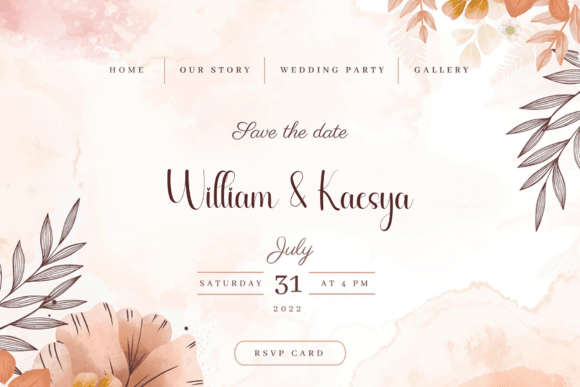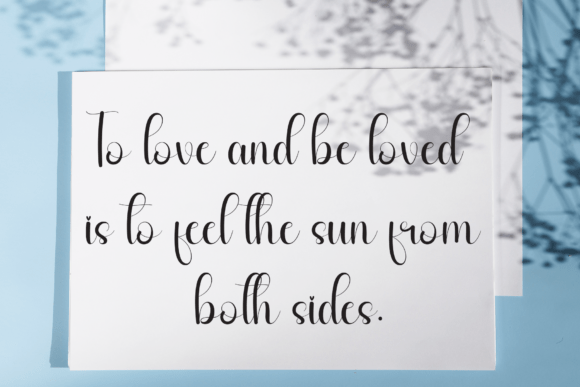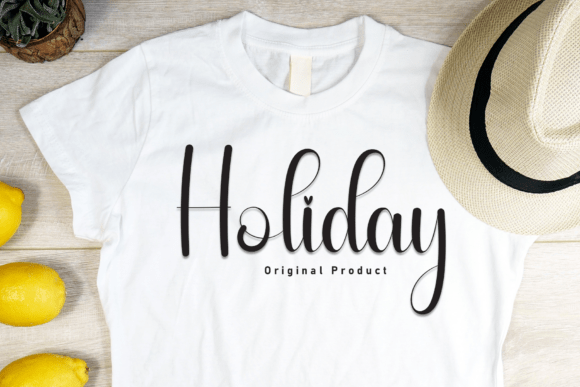
Introduction to Notes Valentines Font
Have you ever been working on a creative project, pouring your heart and soul into every detail, and suddenly, the perfect font comes along and elevates your design to a whole new level? That’s exactly what happened to many designers when they discovered the Notes Valentines Font.
This stunning handwritten script font has captured the hearts of designers worldwide with its elegant and charming aesthetic. Its fluid, graceful strokes create a sophisticated and refined look that’s perfect for branding, invitations, and stationery. Whether you’re working on a high-quality design project or simply need a unique touch for your next creative endeavor, the Notes Valentines Font is an invaluable resource.
With its smooth curves and natural flow, this font adds a personal and timeless touch to any design. Whether you’re working on a free download project or need a design resource for a paid client, the Notes Valentines Font is an essential tool for any designer looking to create something truly special.
Key Features of Notes Valentines Font
- High-quality design ideal for creative projects, with intricate details and romantic feel.
- Features a unique, handwritten style with a mix of cursive and script elements, perfect for adding a personal touch to designs.
Honest Review: Notes Valentines Font
I recently came across the Notes Valentines Font, and I must say it’s a lovely addition to any creative project. This high-quality font is perfect for adding a touch of romance and whimsy to your designs.
Here are some of the things that work well:
- ✨ Beautiful, hand-drawn feel that’s perfect for creative projects
- ✨ Wide range of characters, including punctuation and special symbols
- ⚠️ Limited font sizes and styles available
- ⚠️ May not be suitable for large-scale commercial use
Overall, I’m really impressed with the Notes Valentines Font. It’s a great design resource that’s perfect for adding a touch of personality to your designs. With its high-quality design and transparent background, it’s a must-have for any designer looking to add some romance to their creative project.
The Notes Valentines Font is a unique and high-quality design resource perfect for creative projects, especially those with a romantic or whimsical theme. This font features a transparent background, making it ideal for overlaying on images or using as a standalone design element.
Tips for Getting the Most Out of the Notes Valentines Font
To get the most out of the Notes Valentines Font, experiment with different font sizes, colors, and layering techniques. This font is particularly effective when used in combination with other design elements, such as images and graphics.
The Notes Valentines Font is perfect for a variety of design projects, including:
- Valentine’s Day cards and invitations
- Blog posts and social media graphics